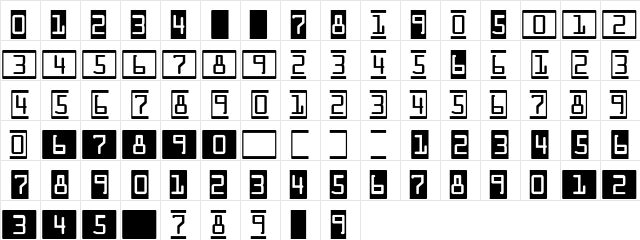
DecoNumbers LH OCRA Regular
Design Context for DecoNumbers LH OCRA Typeface
DecoNumbers LH OCRA is a composed and adaptable typeface that performs quietly and consistently across a wide range of design contexts.